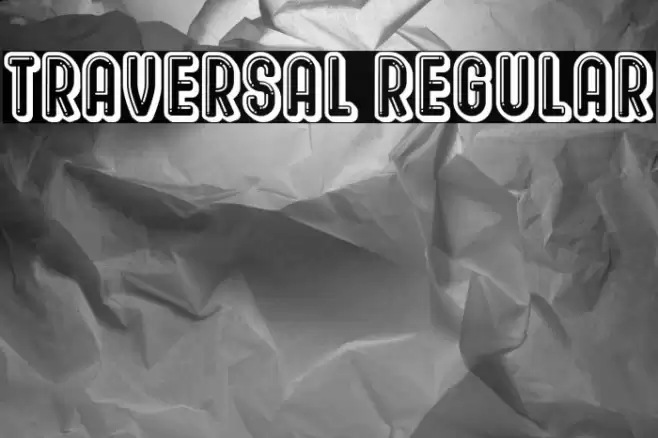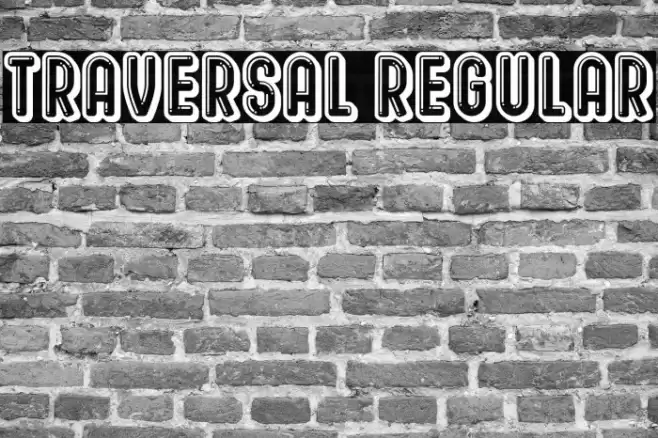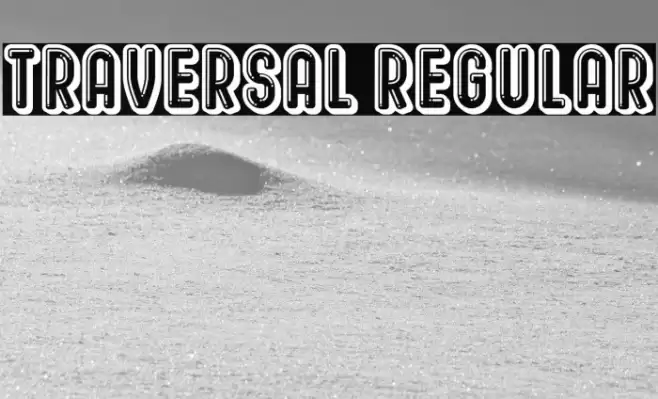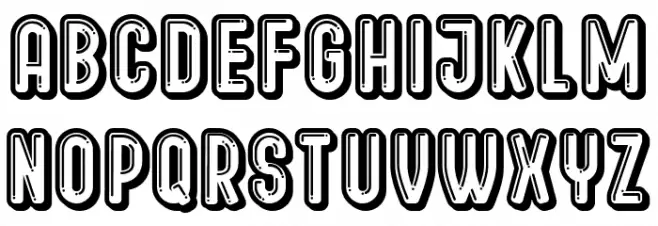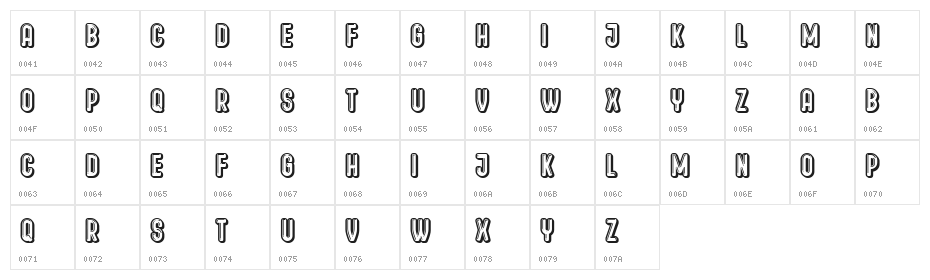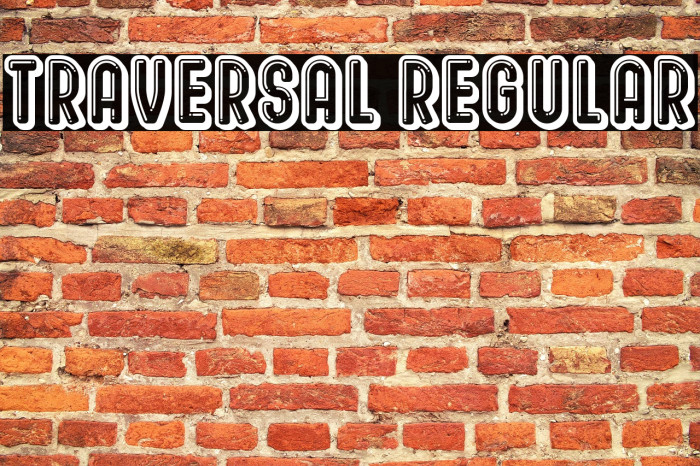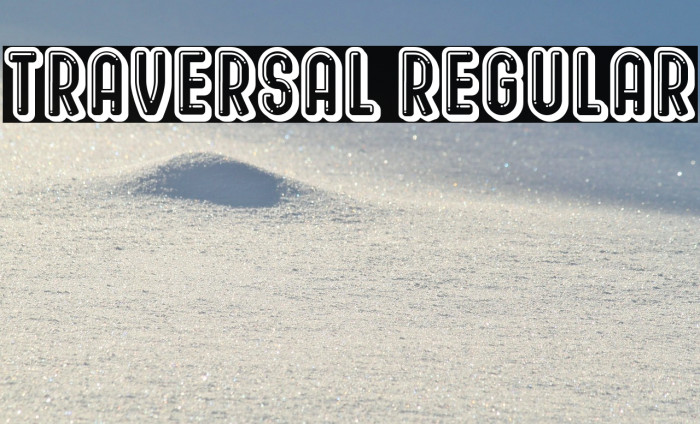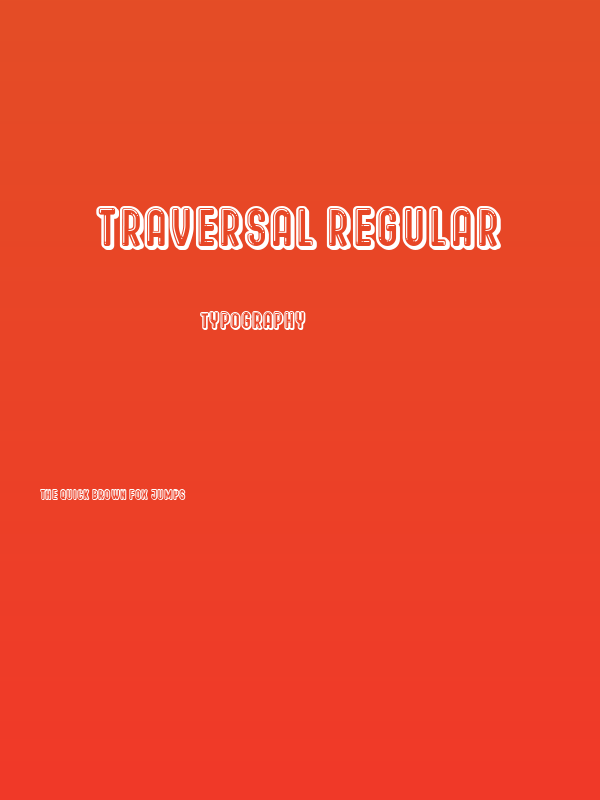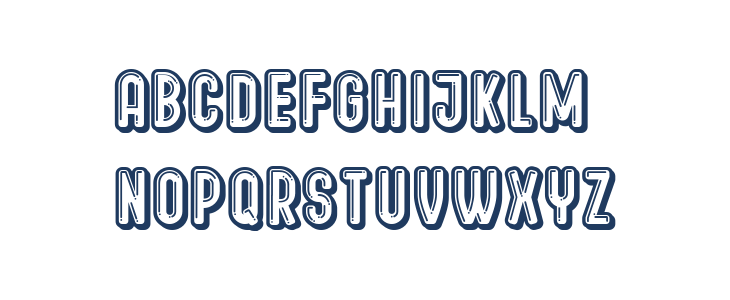
Traversal Regular Font
Traversal Regular Description
This font features a bold, decorative style with a distinct three-dimensional effect. The letters are outlined with a thick black border, creating a shadow-like appearance that adds depth and visual interest. The inner part of each character is filled with a lighter shade, enhancing the contrast and making the text stand out. The design is geometric and structured, with consistent line thickness and sharp angles, giving it a modern and dynamic look. This font is ideal for projects that require a strong visual impact, such as headlines, posters, and branding materials. Its unique style makes it suitable for creative and artistic applications, where a bold statement is desired.
A bold, decorative font with a three-dimensional effect and strong visual impact from Uncategorized fonts.
- Proposed Projects: Ideal for headlines, posters, branding, and creative projects requiring a bold statement.